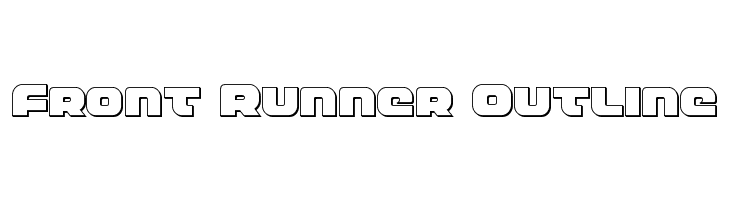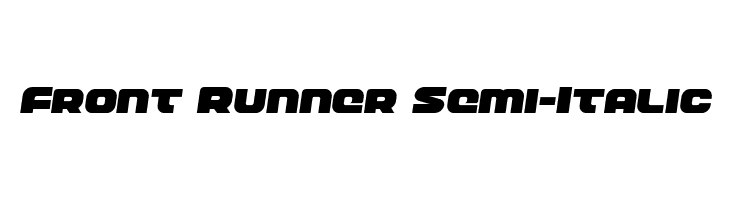
A bold, futuristic font with geometric, block-like characters.
A bold, italic, futuristic font with wide, blocky characters and sharp angles.
A bold, left-slanted font with a futuristic and dynamic style.
A bold, outlined font with a futuristic and geometric design.
A bold, outlined, italic font with a geometric, modern style.
A bold, semi-italic font with a dynamic and modern style.
A bold, italic font with a dynamic, sporty style and high contrast.
A bold, geometric font with rounded edges and a modern style.
A bold, geometric font with a distinctive horizontal striped pattern.